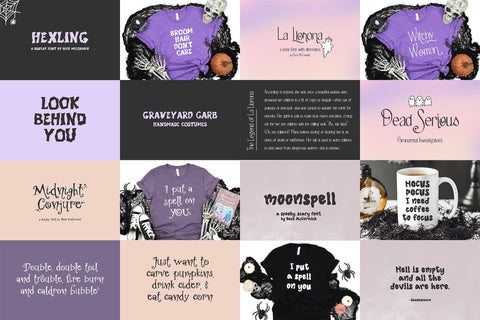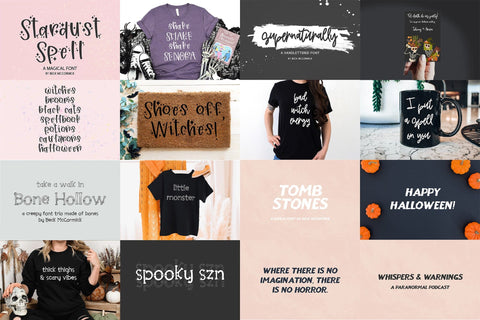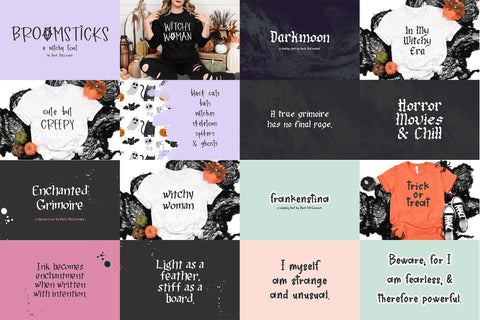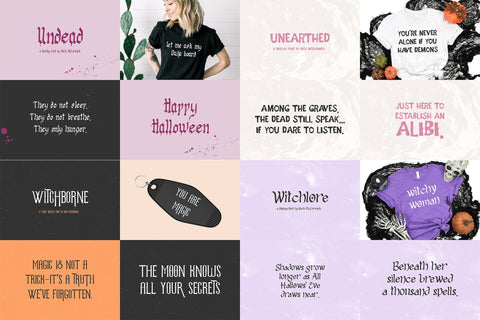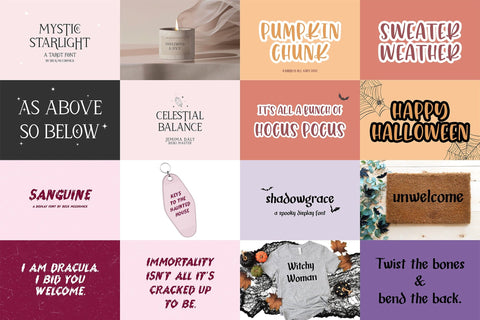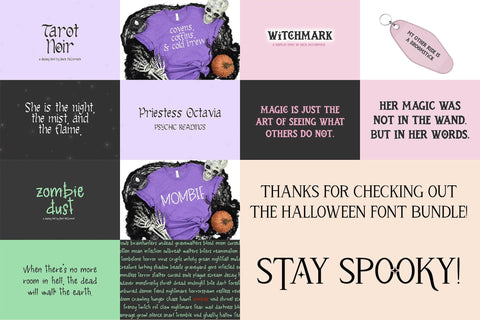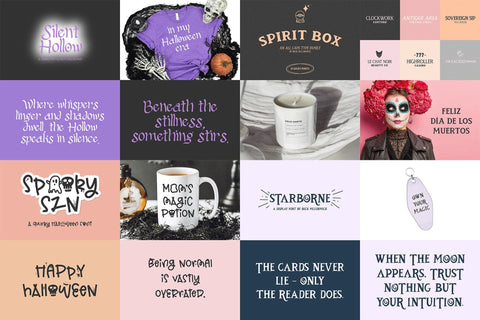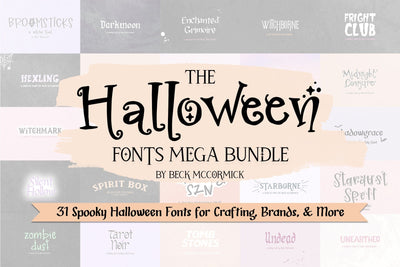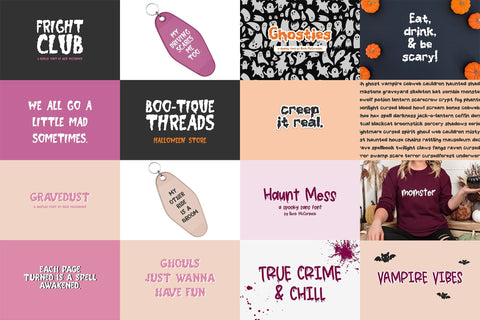
The Halloween Font Bundle
Spooky blackletter fonts? Check!
Handlettered gothic fonts? Check!
Tarot fonts? Check!
Witchy Fonts? Check!
Drippy blood fonts or slimy fonts? Gotchu.
Horror movie fonts? Yep, got that, too.
Monster fonts? You betcha.
Fonts with stars & little moons? Check!
Fonts with little ghosties or scary doodles? Yes!
This bundle includes a wide variety of fonts with Halloween & spooky things in mind. These fonts are well-suited for Halloween crafting projects with your Cricut or Silhouette machine, and can be used for things like shirts, signs, labels, marketing materials, social media, SVG designs, and even spooky logos & branding.
Many of these fonts include special characters like letters that include stars, moons, and other decorative elements. These are OpenType features, and some software may require extra steps to make use of them.
You’ll receive the following fonts:
- Bone Hollow (family includes 3 fonts)
- Broomsticks Witchy Font
- Darkmoon Blackletter
- Enchanted Grimoire Display
- Frankenstina Sans
- Fright Club Horror Font
- Ghosties Sans Font
- Gravedust Display
- Haunt Mess Sans
- Hexling Display Font
- La Llorona Sans
- Midnight Conjure Display Font
- Moonspell Sans
- Mystic Starlight
- Pumpkin Chunk Sans
- Sanguine Sans
- Shadowgrace Display Font
- Silent Hollow Display
- Spirit Box Serif (family includes 13 fonts)
- Spooky Szn Quirky Halloween Font
- Starborne Serif
- Stardust Spell Sans with Stars
- Supernaturally Script
- Tarot Noir Display
- Tombstones Sans
- Undead Display
- Unearthed Sans
- Witchborne Serif
- Witchlore Display
- Witchmark Display
- Zombie Dust Sans